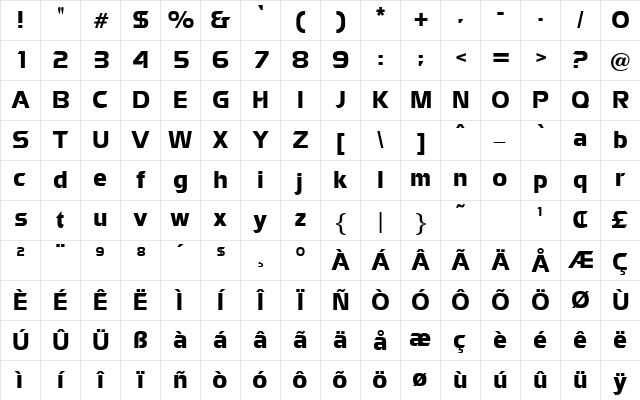
Zapotec Regular
Design Context for Zapotec
Zapotec is a composed and adaptable typeface that performs quietly and consistently across a wide range of design contexts.